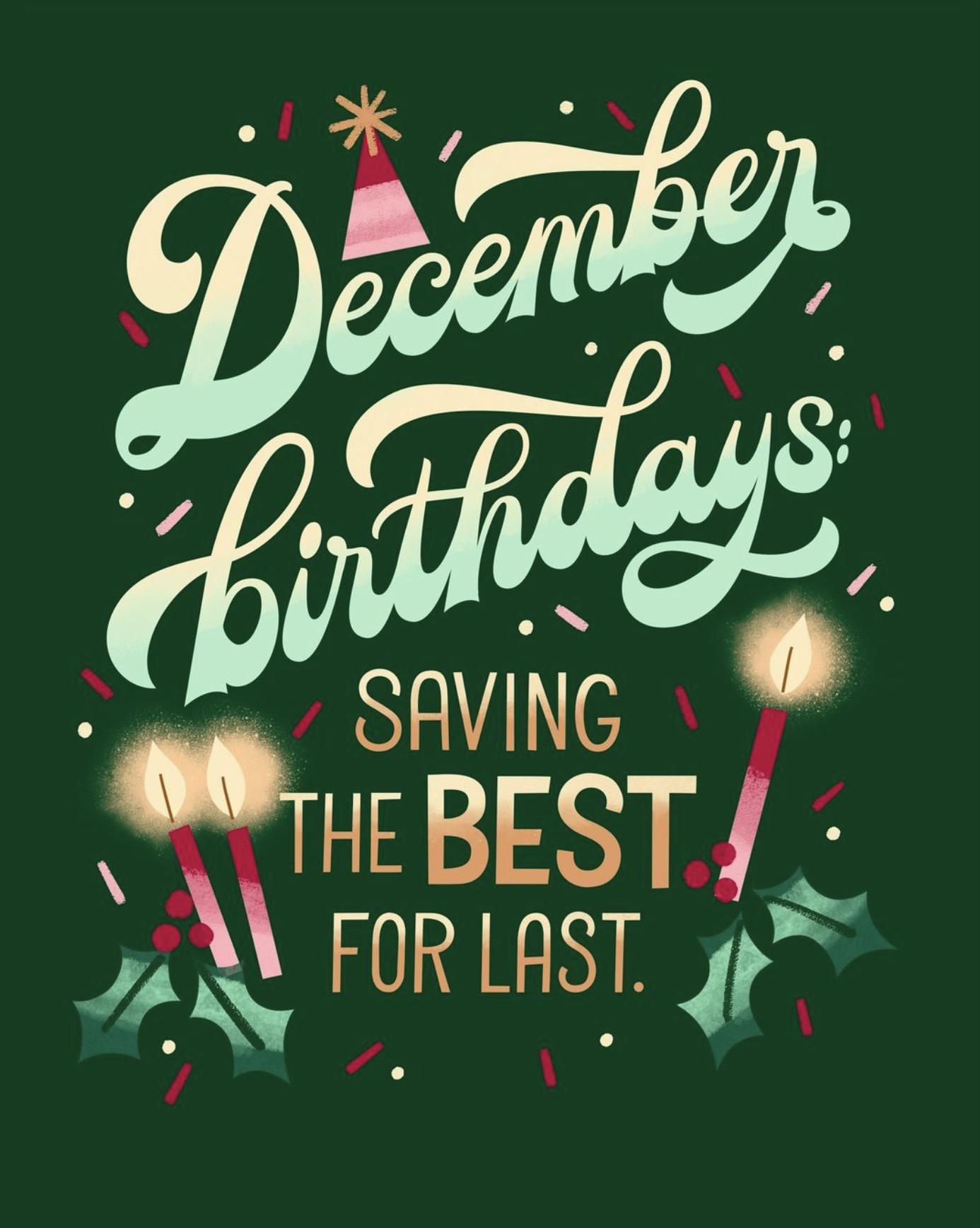
December Birthdays Lettering
Loved getting a chance to create this lettering and illustration for Hallmark’s December Birthdays social post because my mom, sister-in-law, and a few close friends all celebrate this month.